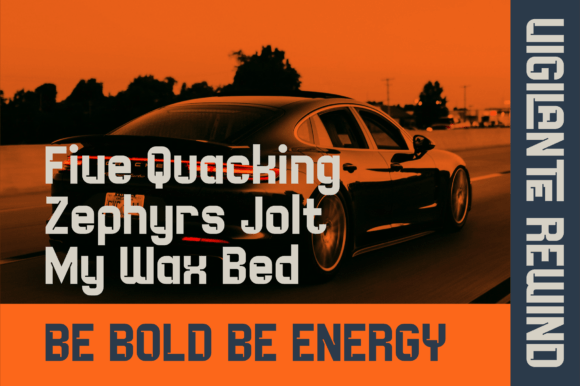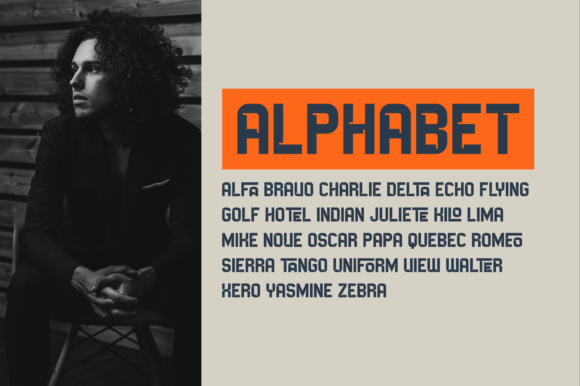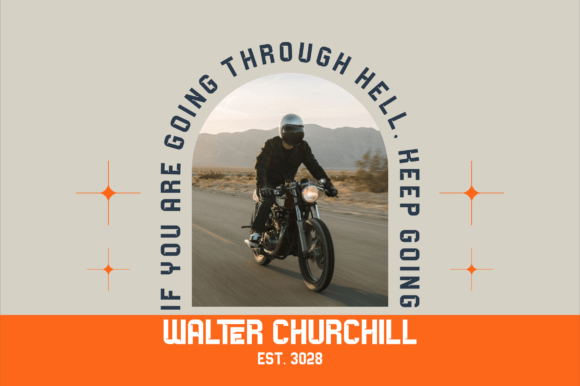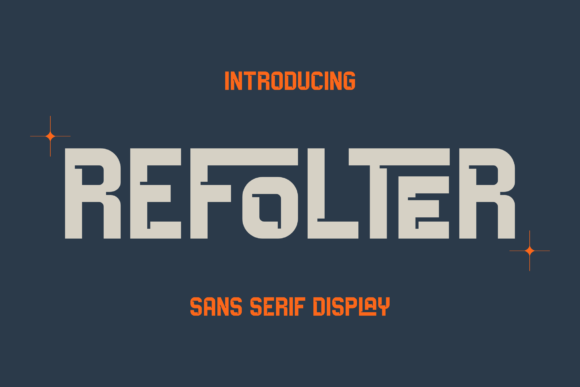
Introduction to Refolter Font
Refolter is a unique sans serif display font.
This typeface is perfect for adding a bold and luxurious look to your logos, book or movie titles, fashion brands, magazines, clothes, lettering, quotes, and so much more .
Refolter Font offers exceptional quality and versatility, making it a valuable addition to your design toolkit. Whether you’re creating for personal projects or commercial use, Refolter Font delivers professional results.